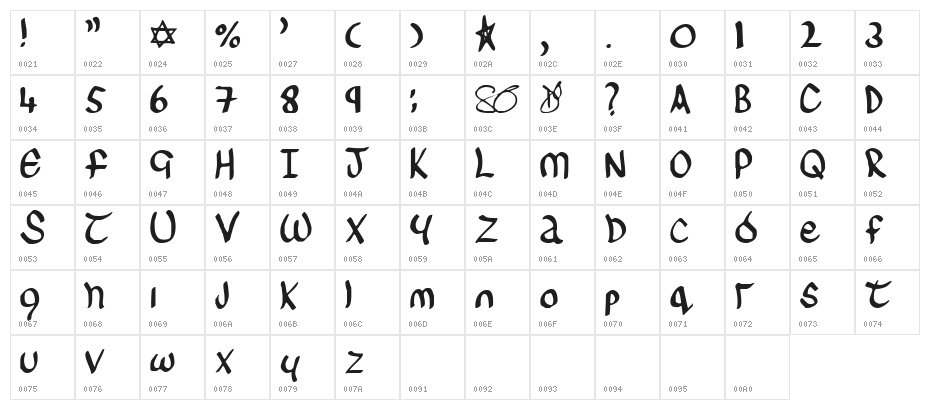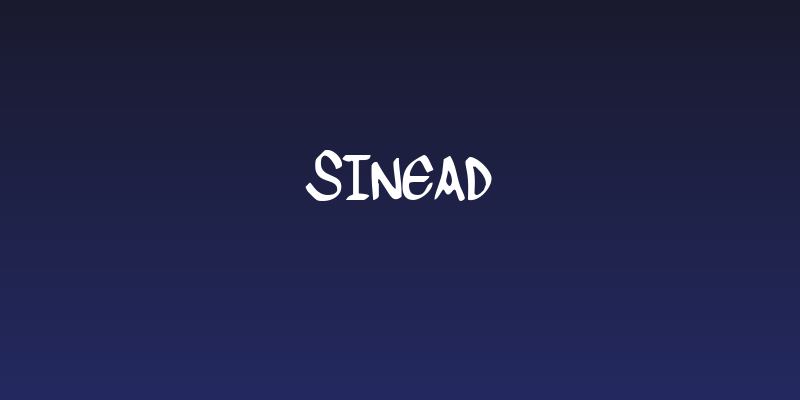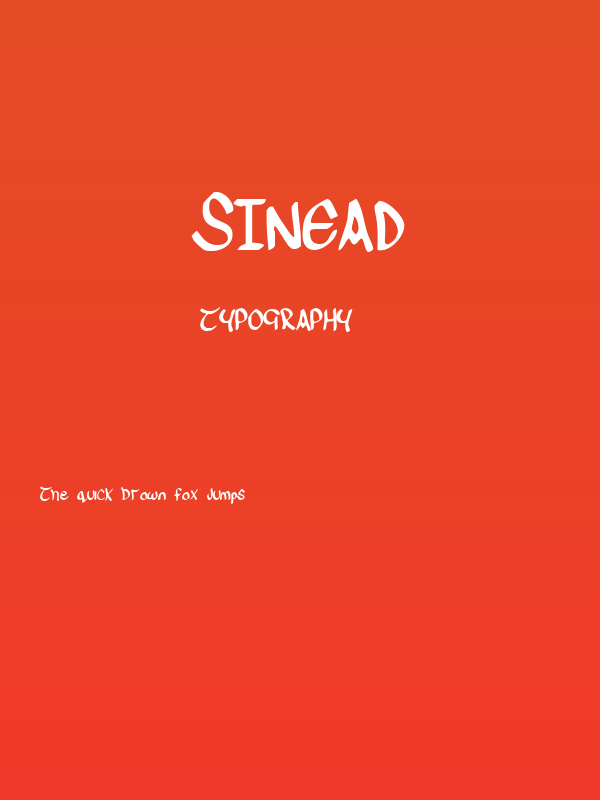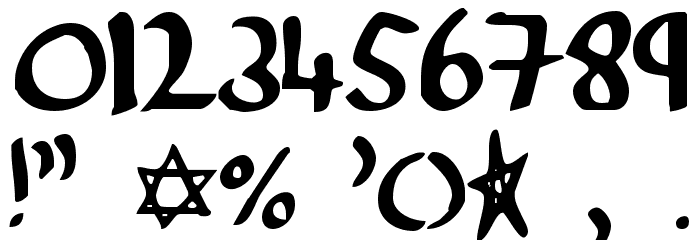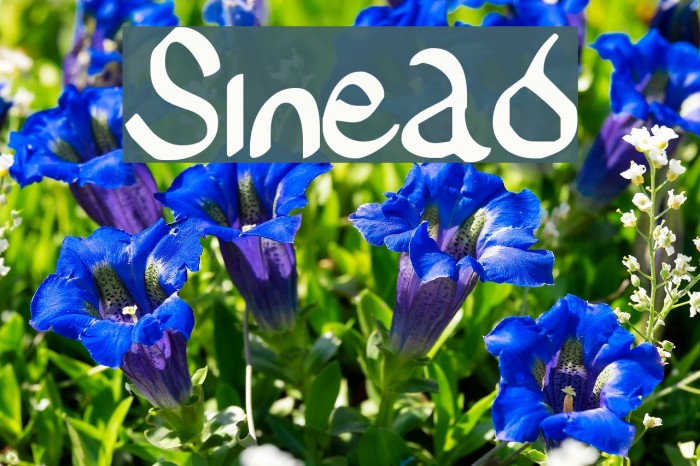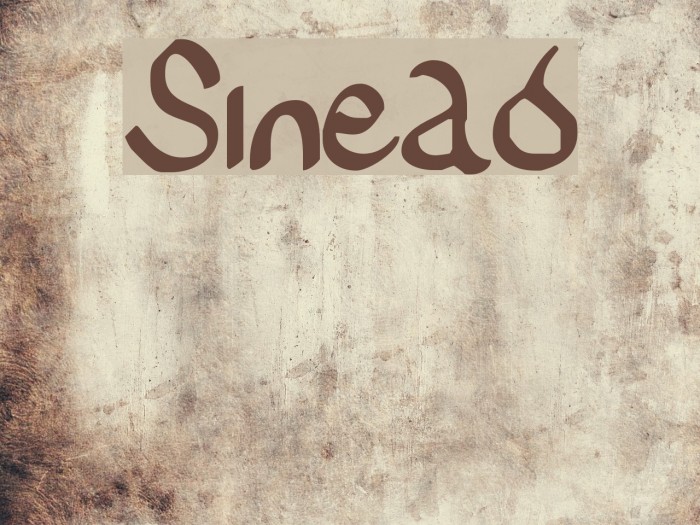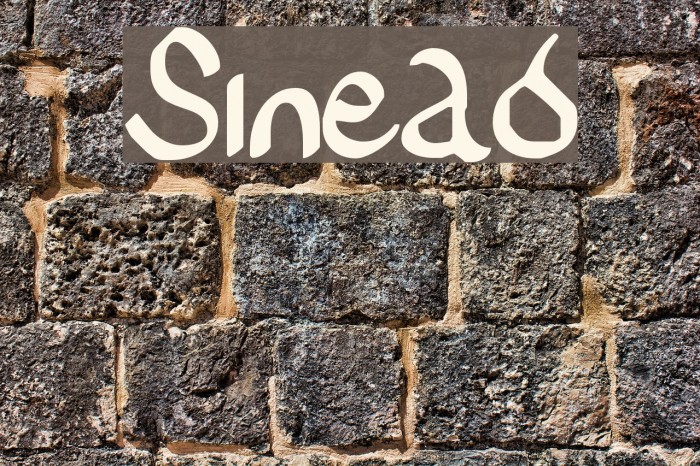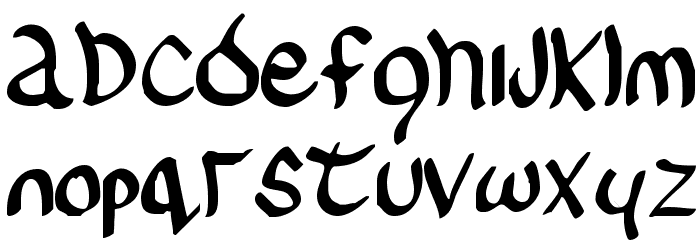
Sinead Font
Sinead Description
This font features a playful and artistic style with a handwritten appearance. The characters exhibit a whimsical and fluid design, with varying stroke thicknesses that add a dynamic and lively feel. The uppercase letters are bold and expressive, while the lowercase letters maintain a consistent flow, enhancing the font's overall charm. The numerals are distinct and maintain the same playful aesthetic, making them easily recognizable. Special characters are creatively designed, adding to the font's unique personality. This font is perfect for projects that require a touch of creativity and individuality.
| Use Case | Logos, Posters, Creative projects |
| Proposed Projects | Ideal for creative projects such as children's books, greeting cards, posters, and artistic branding. |